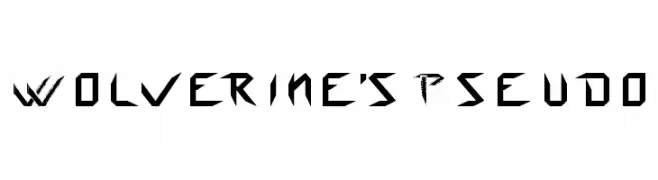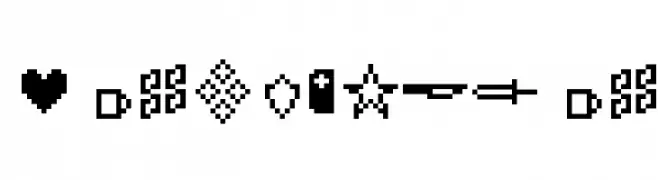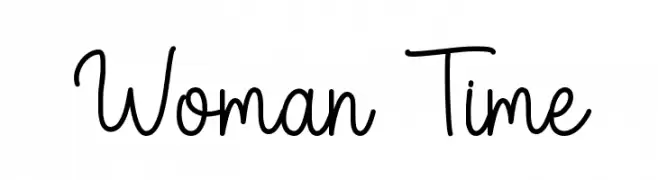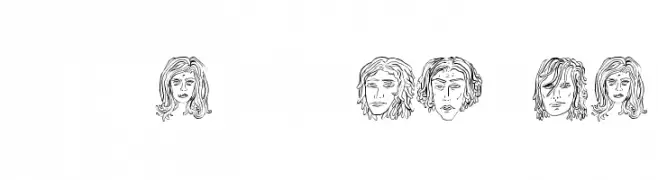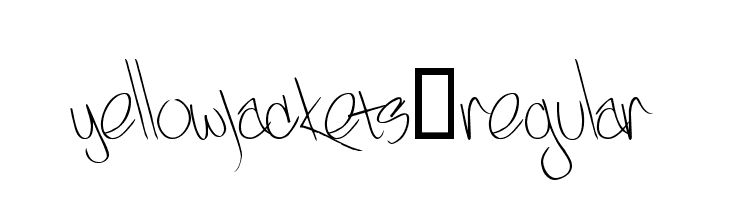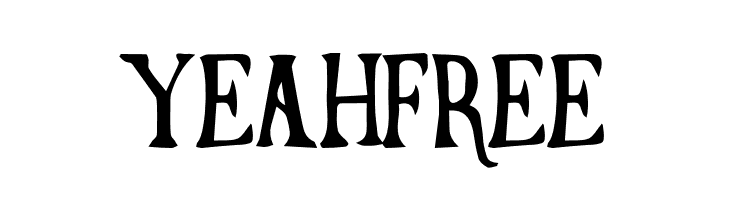
A lively, cursive font with a handwritten, dynamic style.
( JoannaVu - ioannaladopoulou.com )
A futuristic, angular font with sharp edges and geometric forms.
( w01v35w0rd )
Pixel-art symbol font with diverse icons and a retro gaming feel.
( Fonts by Achmad Yani )
A playful, bold font with rounded, bubbly characters ideal for fun and whimsical designs.
A decorative font made from human figure illustrations.
( Fonts by Danar Nugroho )
A playful, casual handwritten font with smooth curves and a friendly appearance.
( Vladimir Nikolic - www.coroflot.com/vladimirnikolic )
Illustrative font with unique hand-drawn female faces as characters.
( Fonts by www.artill.de - Lukas Bischoff )
A geometric, modern font with sharp angles and a clean, technical appearance.
( Fonts by Letterena Studios )
Playful handwritten script font.